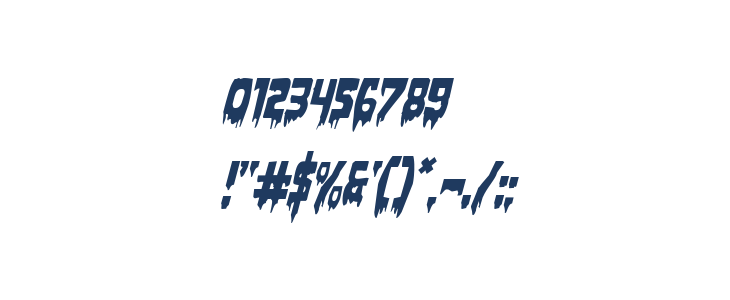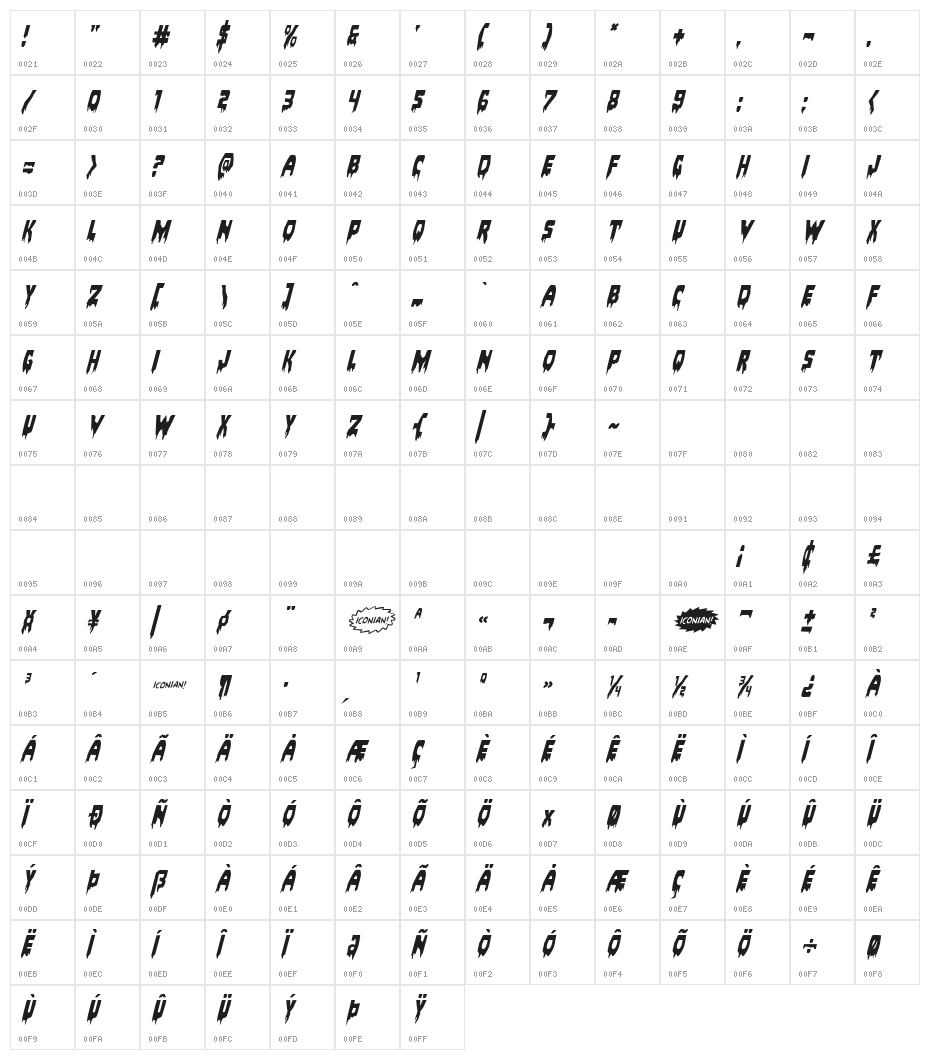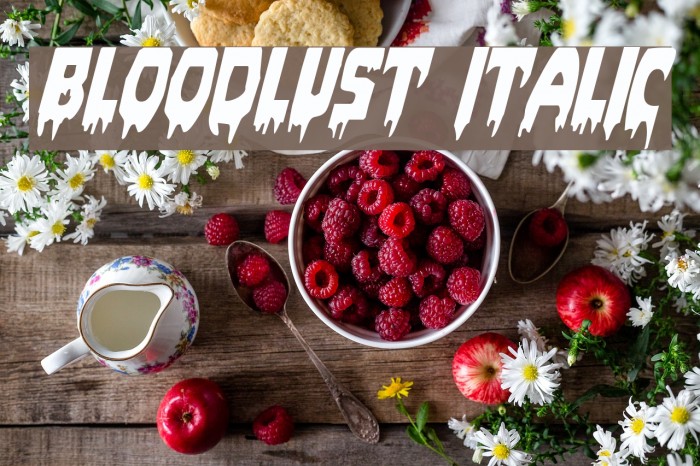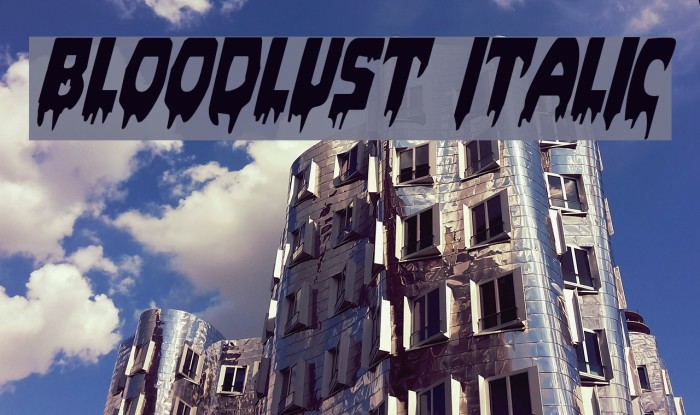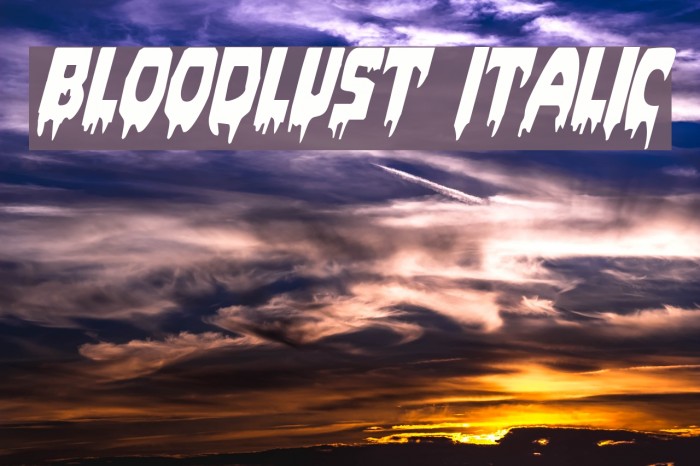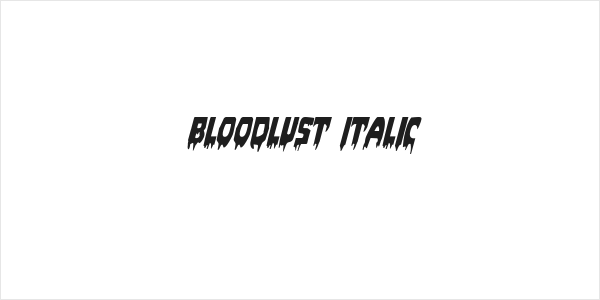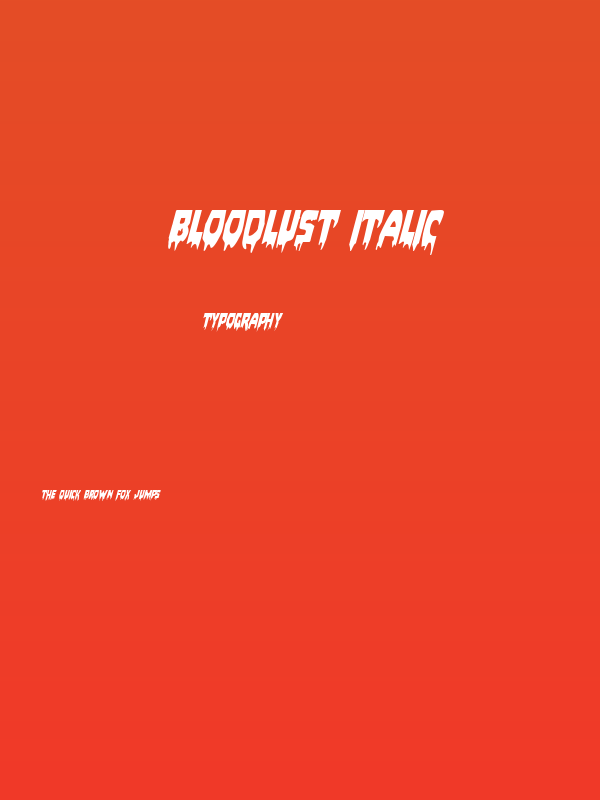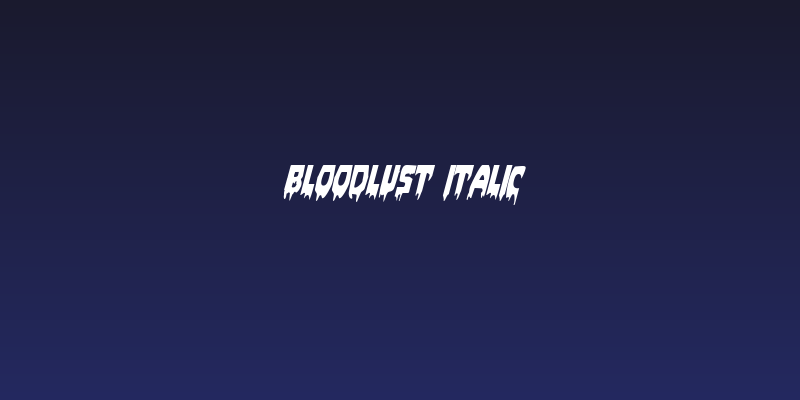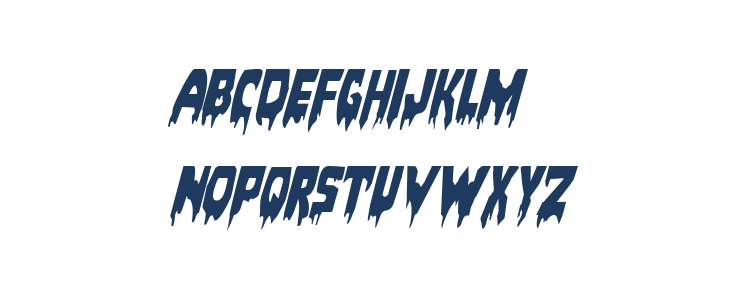
Bloodlust Italic Font
Bloodlust Italic Description
This font exudes a dramatic and intense style, characterized by its jagged, dripping edges that evoke a sense of horror and suspense. The uppercase and lowercase letters maintain a consistent, bold appearance, with each character appearing as if it is melting or bleeding. This effect is particularly pronounced in the uppercase letters, which dominate the visual space with their sharp, angular forms. The numbers and special characters follow the same thematic design, ensuring a cohesive look across all glyphs. The font's unique style makes it ideal for projects that require a chilling or eerie atmosphere.